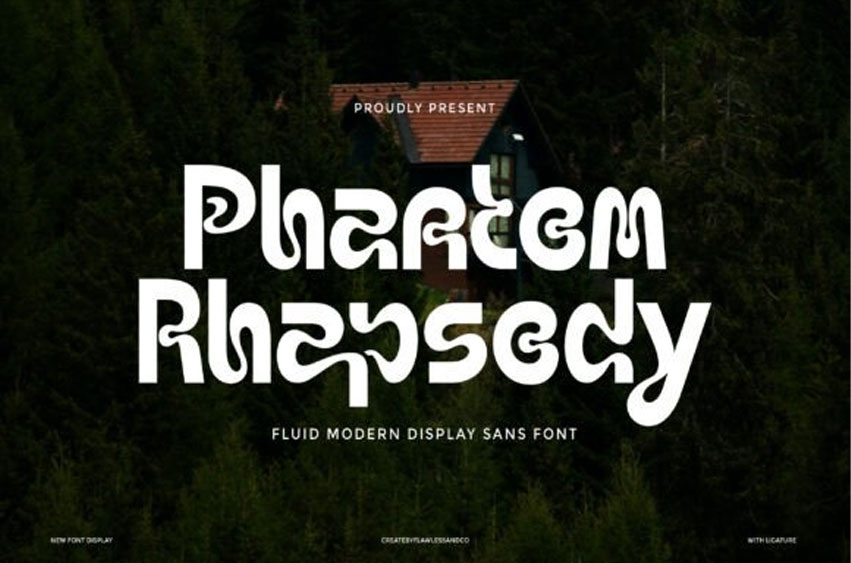
Phantom Rhapsody Font
Phantom Rhapsody Font is a bold horror-style display serif font with gothic flair and sharp details.
Perfect for spooky titles, mysterious covers, or dark branding, it combines elegance with a haunting presence — ideal for evoking suspense and classic storytelling.